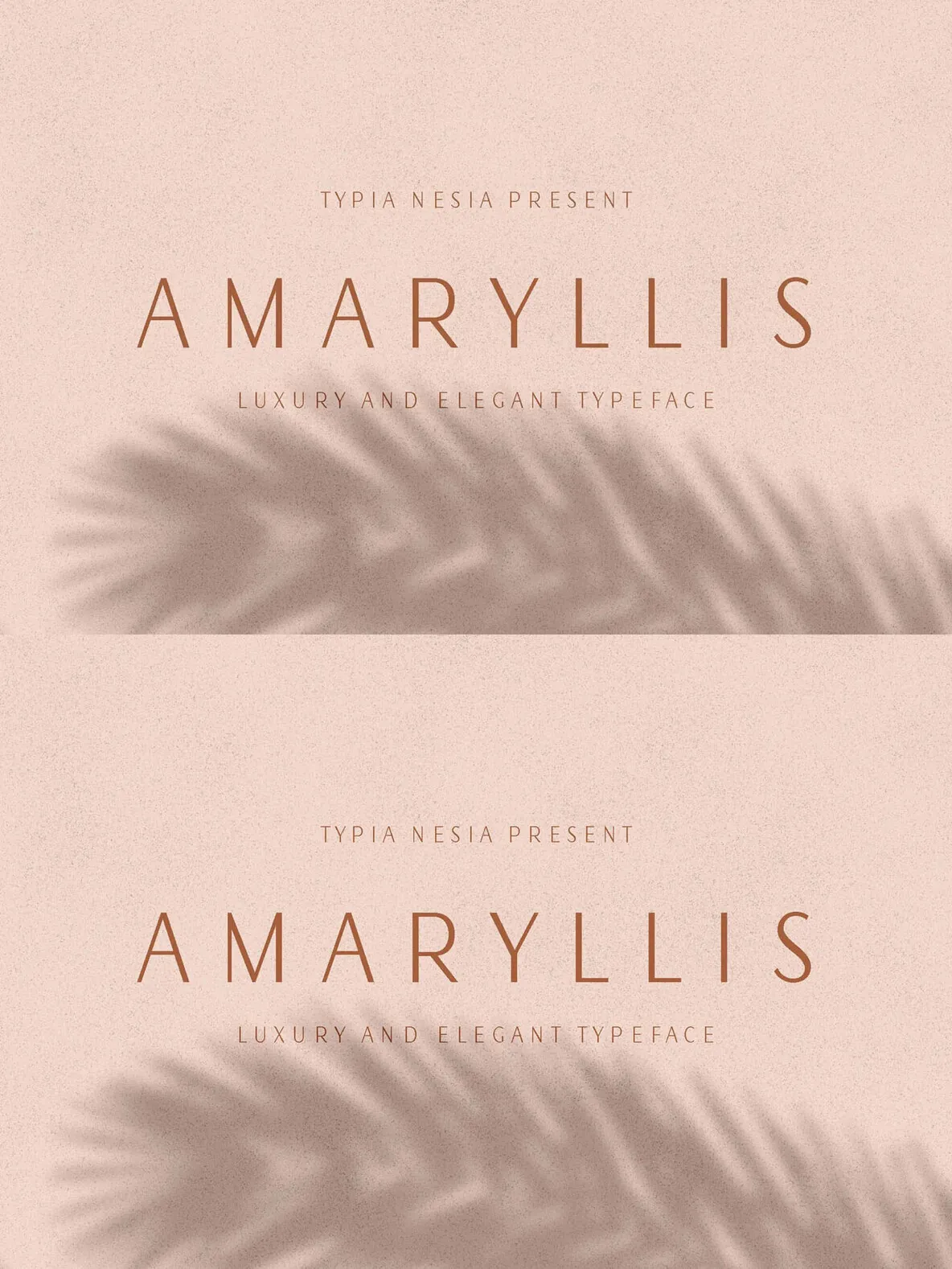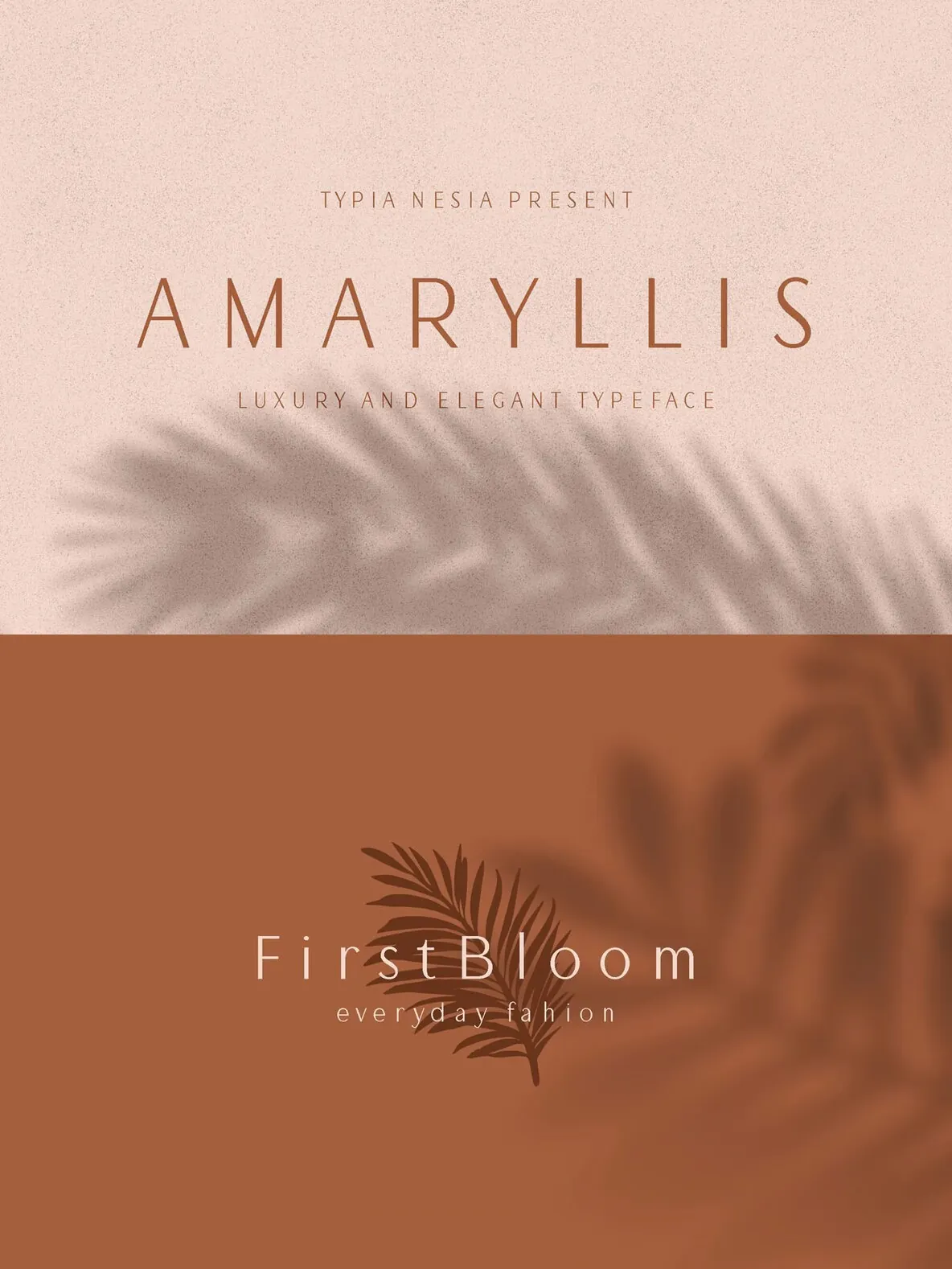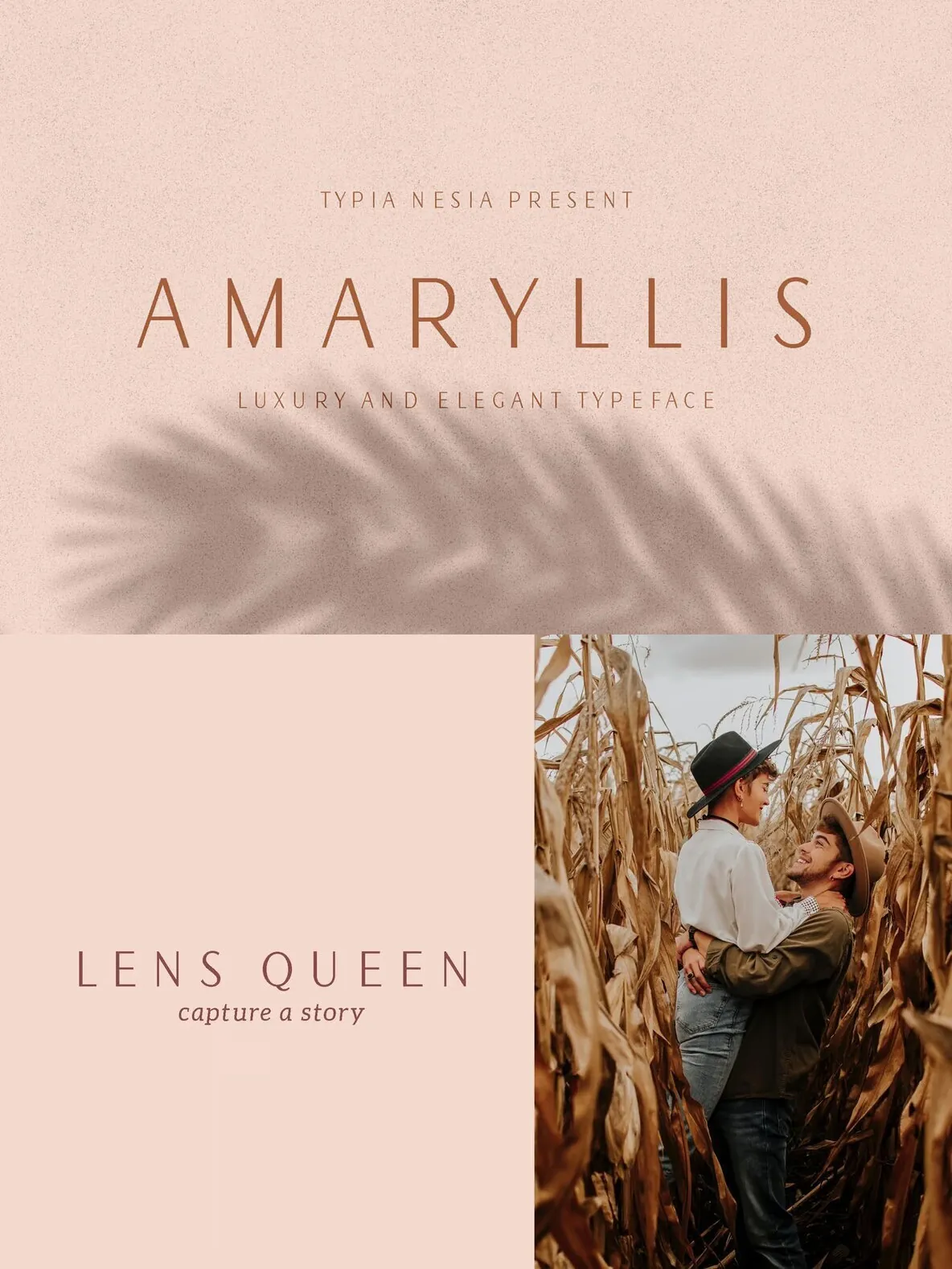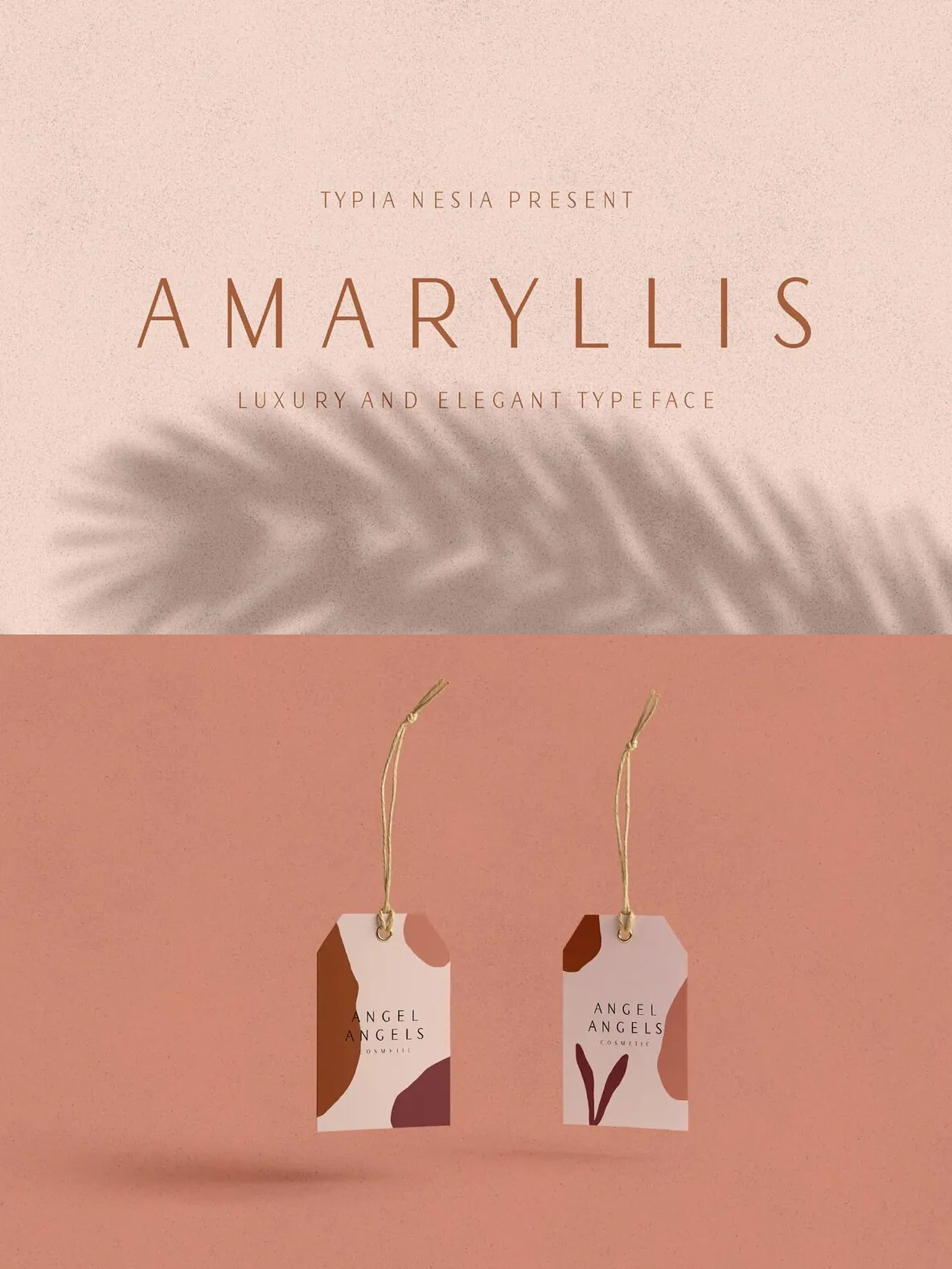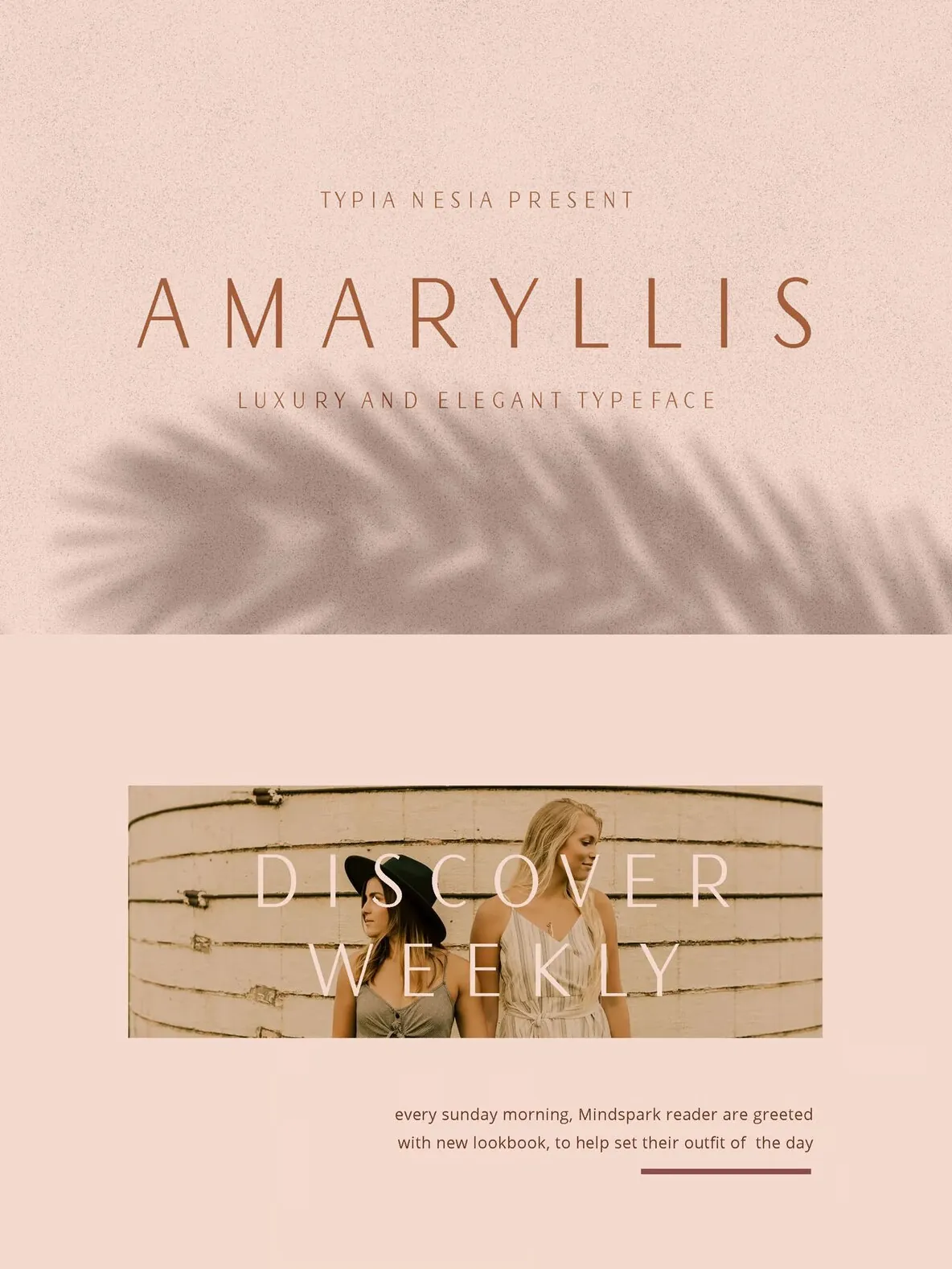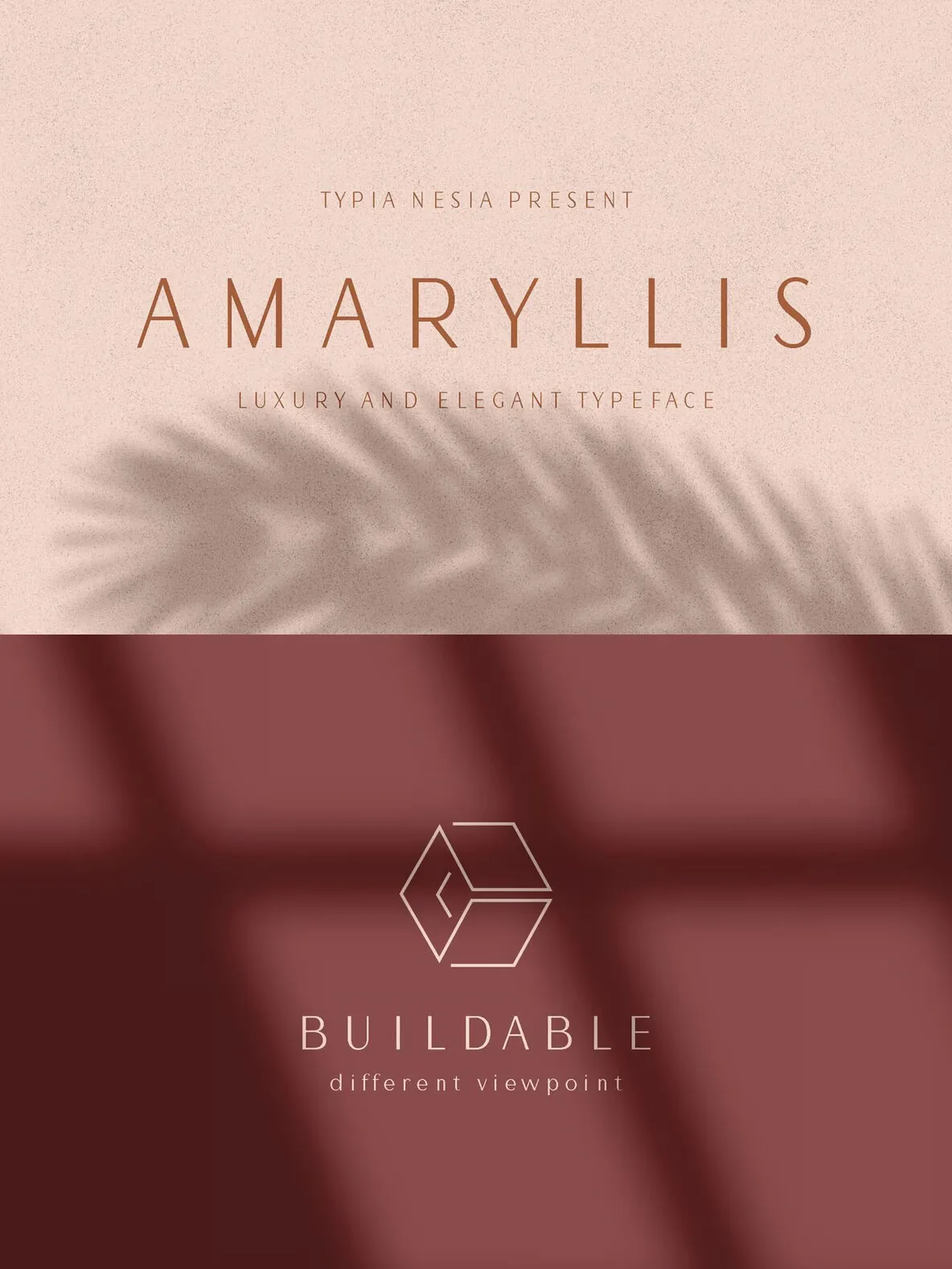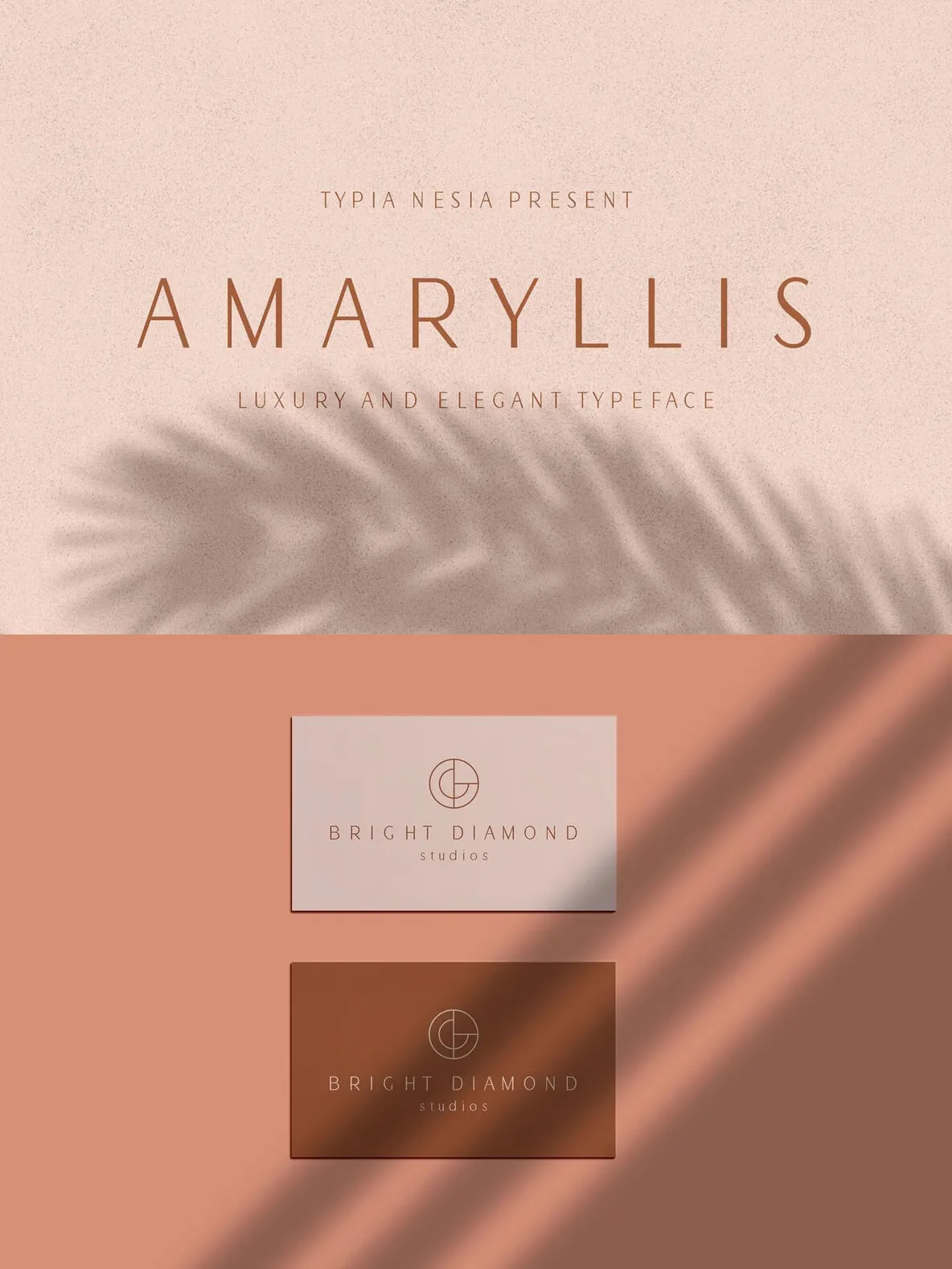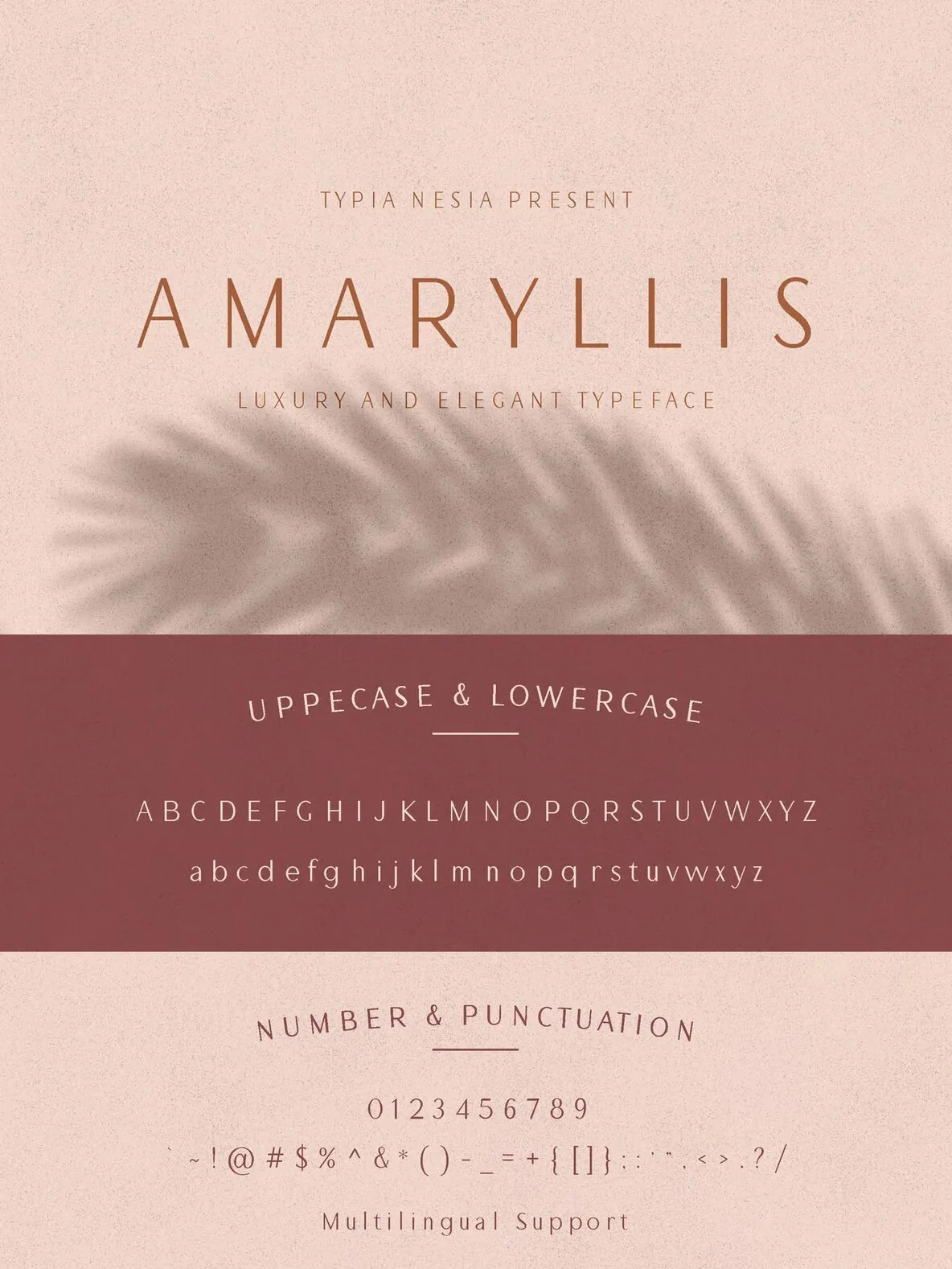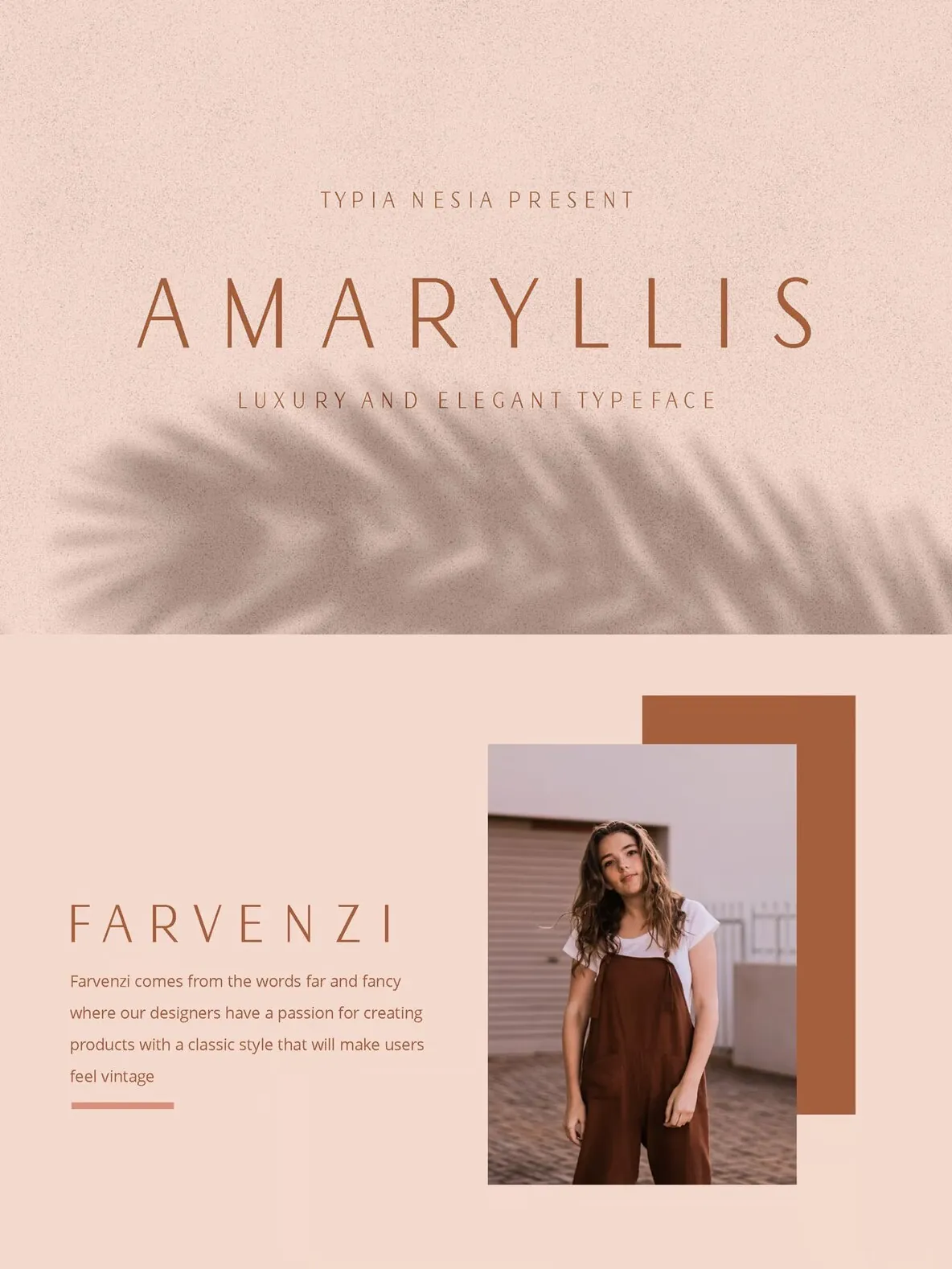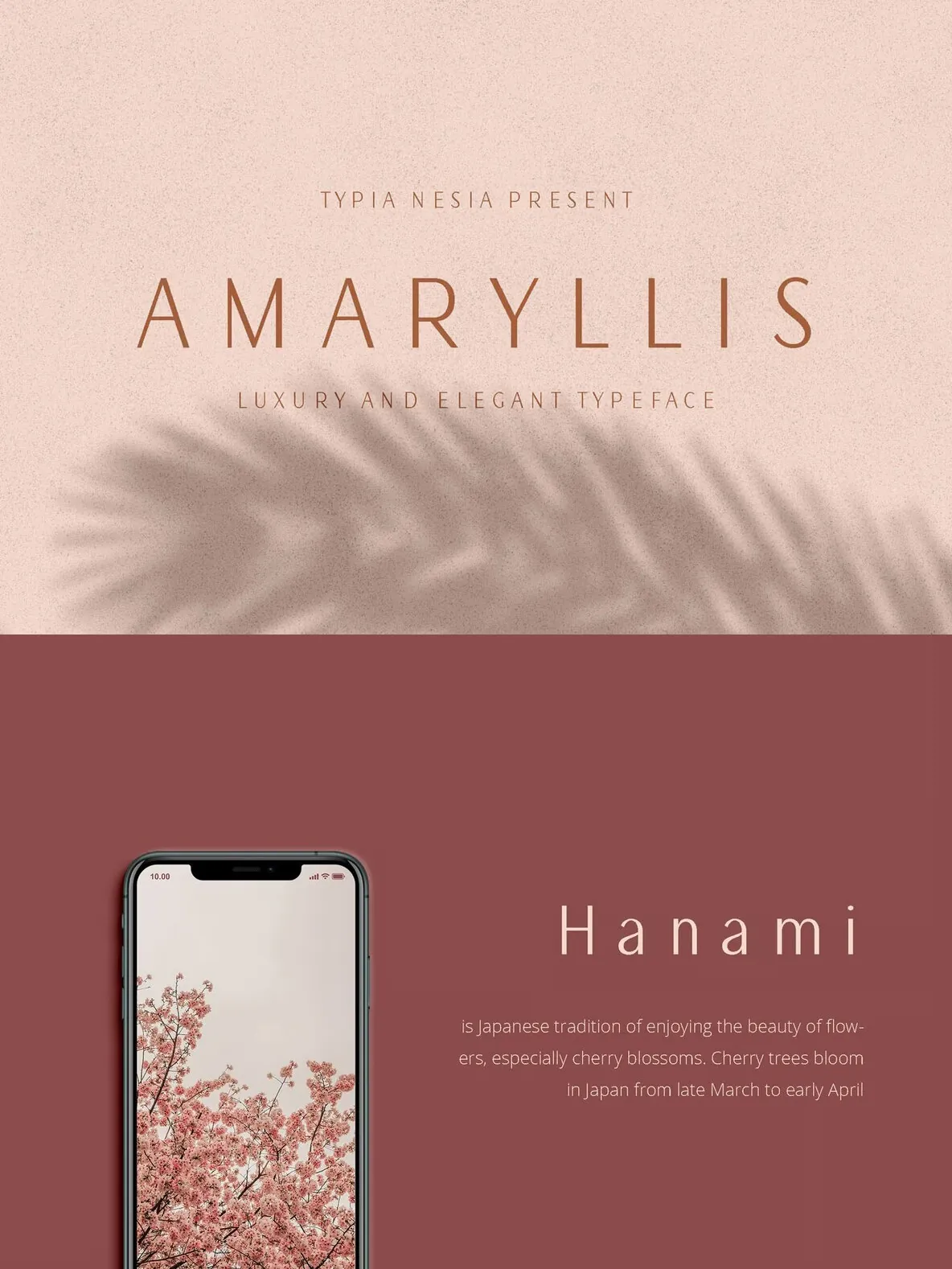
Amaryllis Font
Amaryllis Sans: Refined Sans for Polished Branding
An elegant sans serif with a classy, modern feel, this font suits designers who need clean typography with presence. Use it when you want a contemporary look that still reads as refined, whether the work is minimal or richly detailed.
It fits a wide range of professional and personal applications, including logo branding, editorial design, stationery design, blog design, modern advertising design, card invitations, art quotes, home decor, book covers or titles, and special events like weddings and birthdays. Designed by Typia Nesia Std., Amaryllis Sans works well across both print and digital layouts where clarity and style matter.